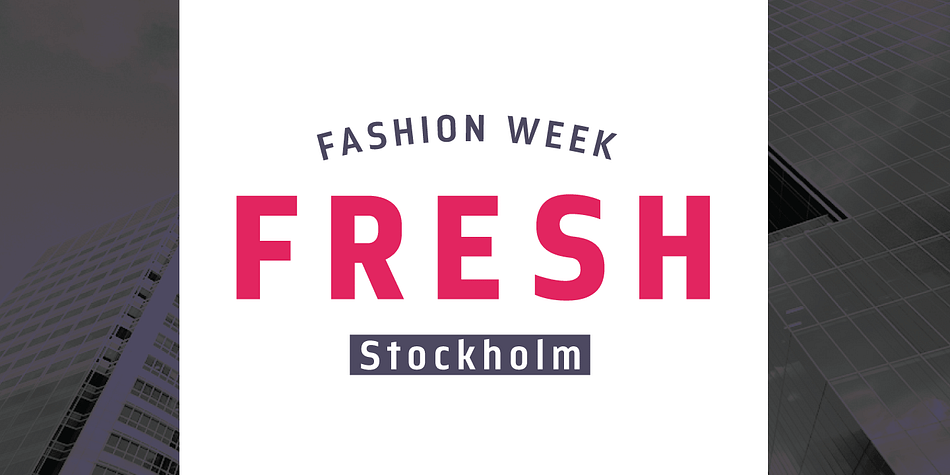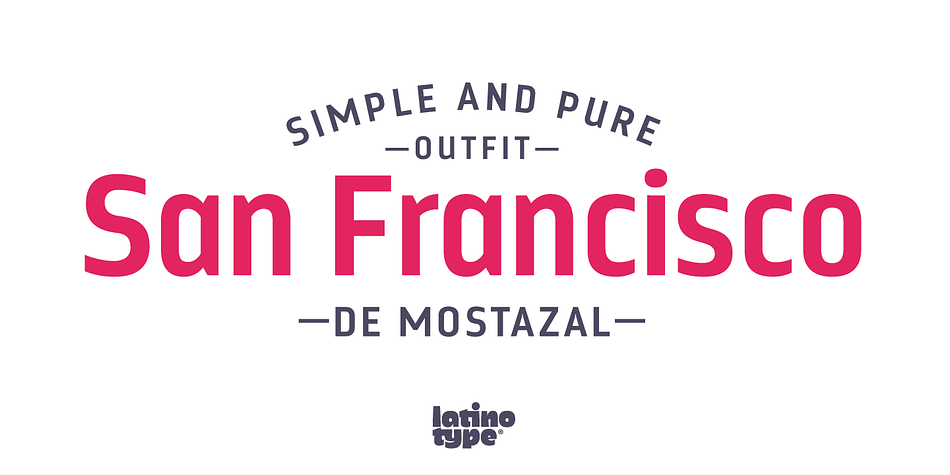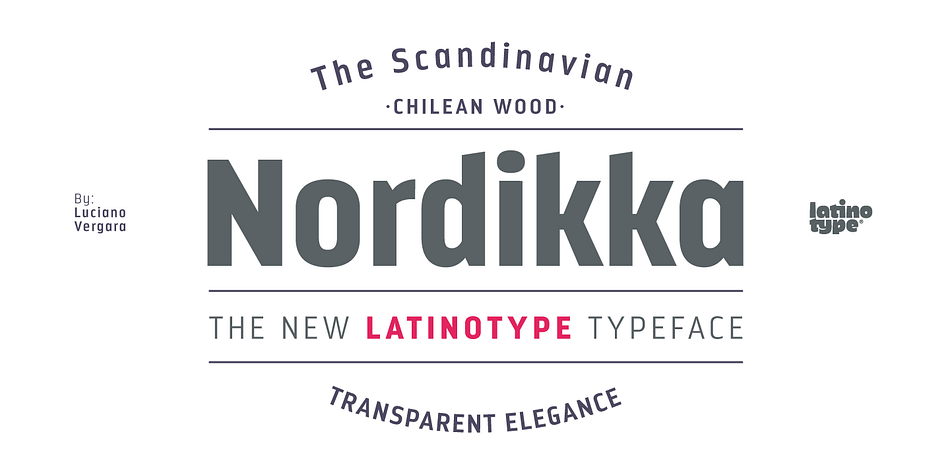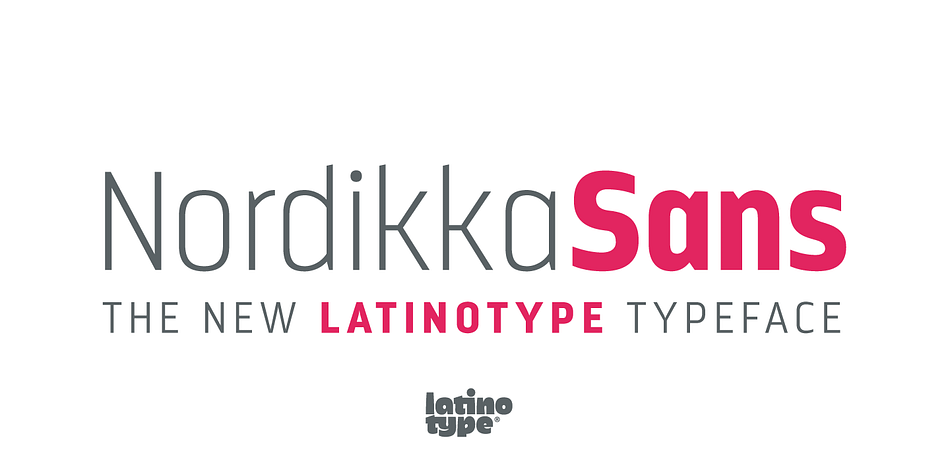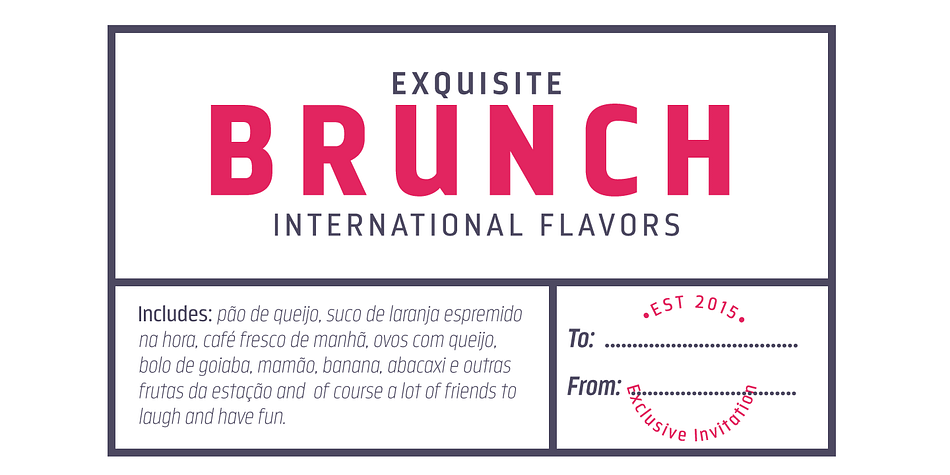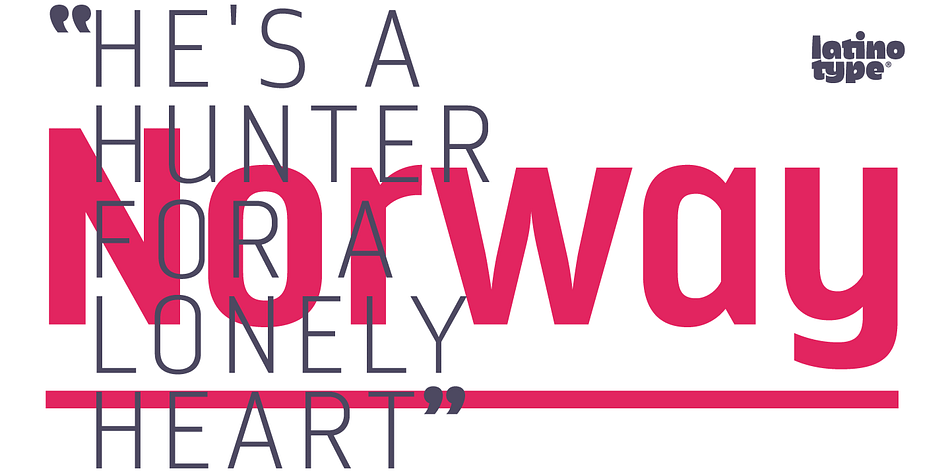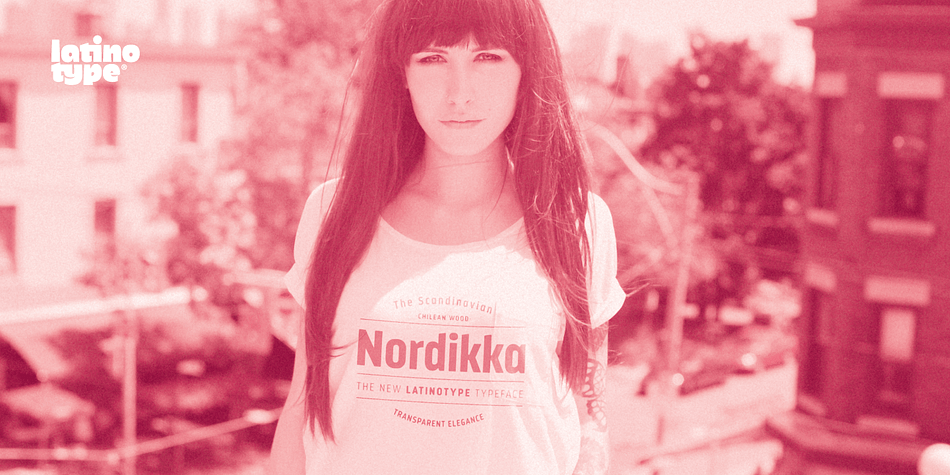
Nordikka is a sans serif font family. This typeface has ten styles and was published by Latinotype.
Nordikka is a 10-style sans-serif simple pure typeface designed by Luciano Vergara. Nordikka is a condensed font with a large x-height and straight terminals well-suited for headlines and short texts. A good option for clean and visually appealing designs.
Nordikka is inspired by Scandinavian culture and its globally recognised design, which is characterised by pure, clean and clear forms. The final stage of the design process was completed in Olinda, Brazil, what inspired some of the words in the font specimens, allowing for reflecting an image of people’s daily habits and customs.